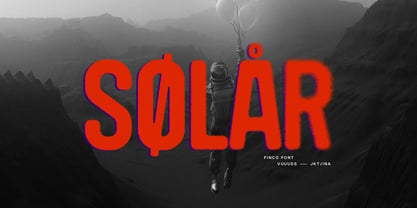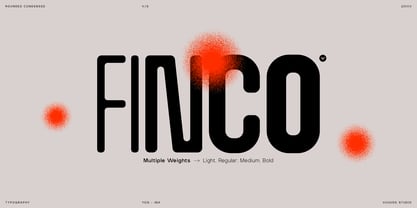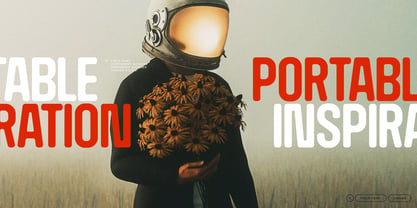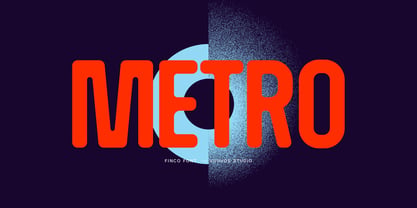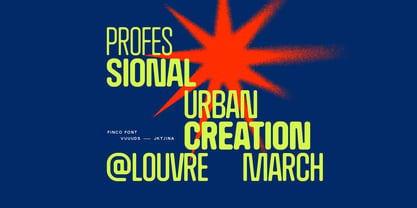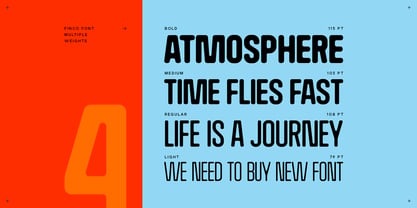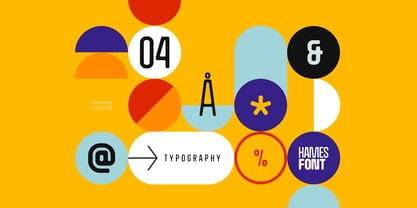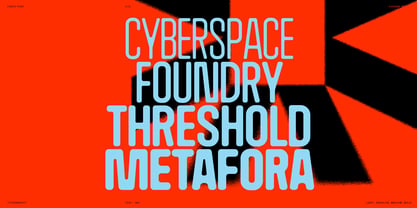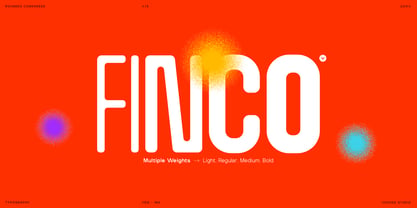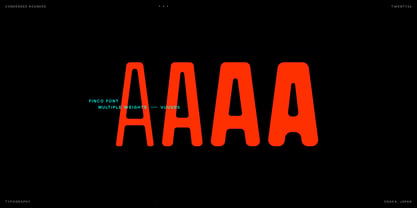
Finco
by vuuuds
The Finco Font Family was designed by Agung Syaifudin and published by vuuuds. Finco contains 4 styles and family package options. More about this family
Meet Finco, a rounded condensed font that’s as versatile as it is sleek. Packing four different weights, it easily adapts to whatever vibe your project demands. Whether you're crafting a modern logo, building out a fresh branding identity, making poster headers pop, or designing clean layouts for websites and mobile apps, Finco handles it all with effortless style.
Designers: Agung Syaifudin
Foundry: vuuuds